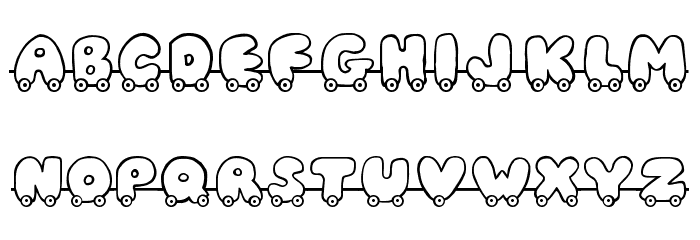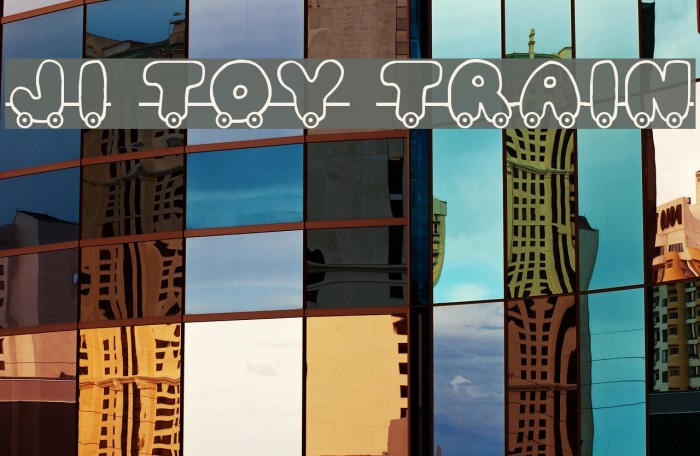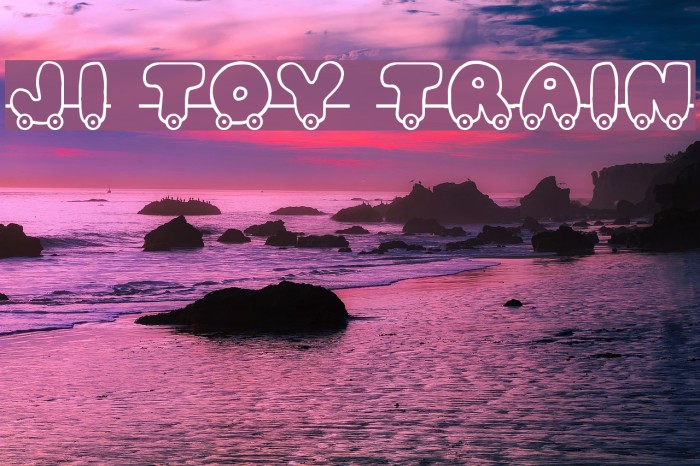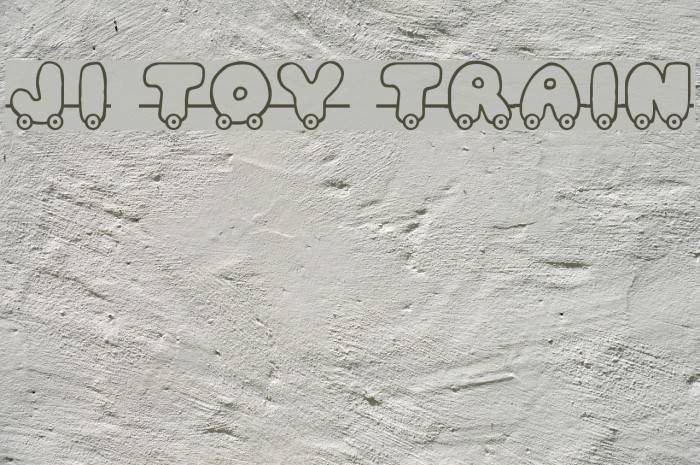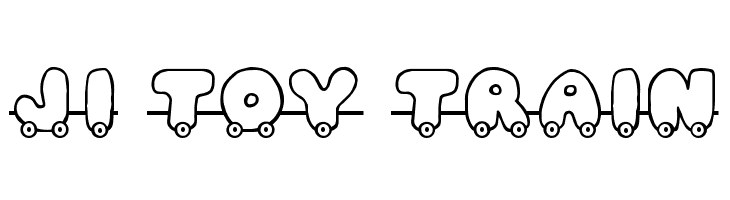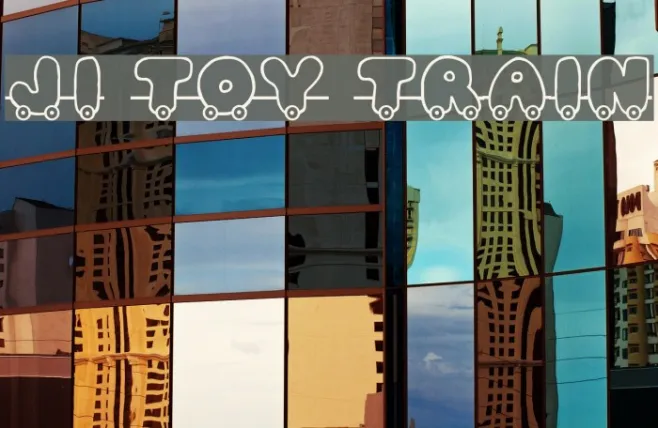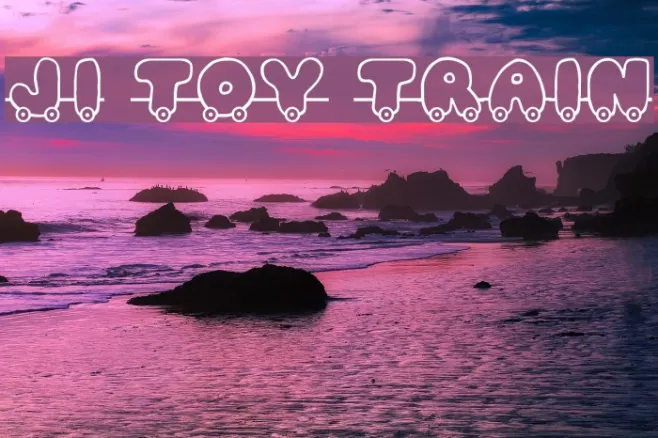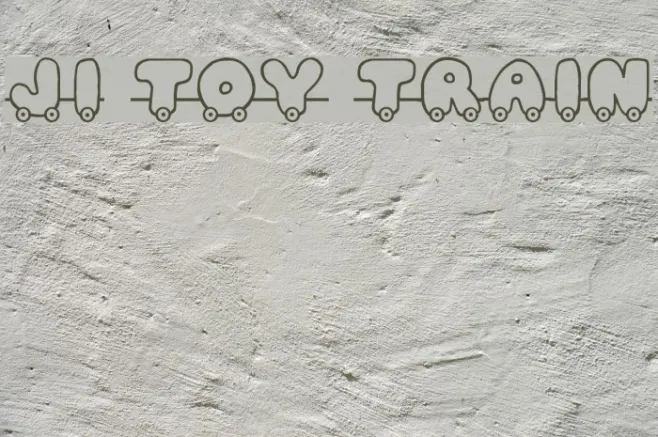
JI Toy Train Font
This playful and whimsical font features letters designed to resemble toy train cars, complete with wheels and a connected appearance. Each character is bold and rounded, giving a friendly and approachable feel. The design is consistent across both uppercase and lowercase letters, maintaining the train motif throughout. The font is ideal for children's projects, educational materials, or any design that requires a fun and lighthearted touch. Its unique style makes it stand out, while the clear and legible letterforms ensure readability.
A playful font with letters resembling toy train cars, perfect for children's projects.
- Proposed Projects: Ideal for children's books, educational materials, toy packaging, and playful branding.
- Overall Style: Playful, Whimsical
- Use Case: Headlines, Logos, Children's materials